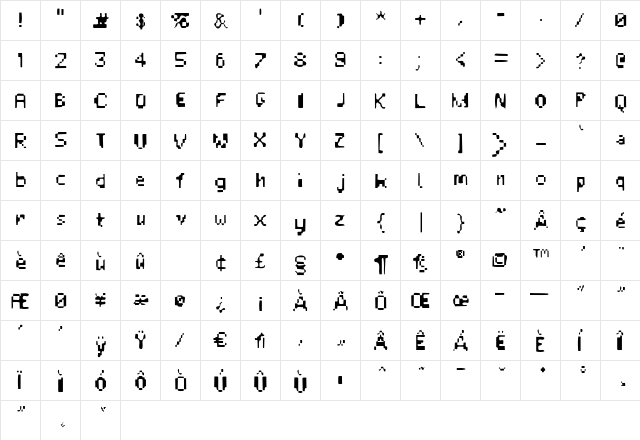
Unknown Error Rough
| Style | Rough |
| Foundry | Michael Wallner |
| Designer | Michael Wallner |
Design Context for Unknown Error Typeface
Unknown Error embraces imperfection — its rough, textured character adds raw authenticity to designs that want to feel lived-in and unconventional.
A strong fit for alternative music projects, graffiti-adjacent design, and anything that deliberately resists polish.
Pro Tip: Use Unknown Error at larger sizes where the texture and irregularity of each letterform can be clearly seen — it loses its character at small sizes.